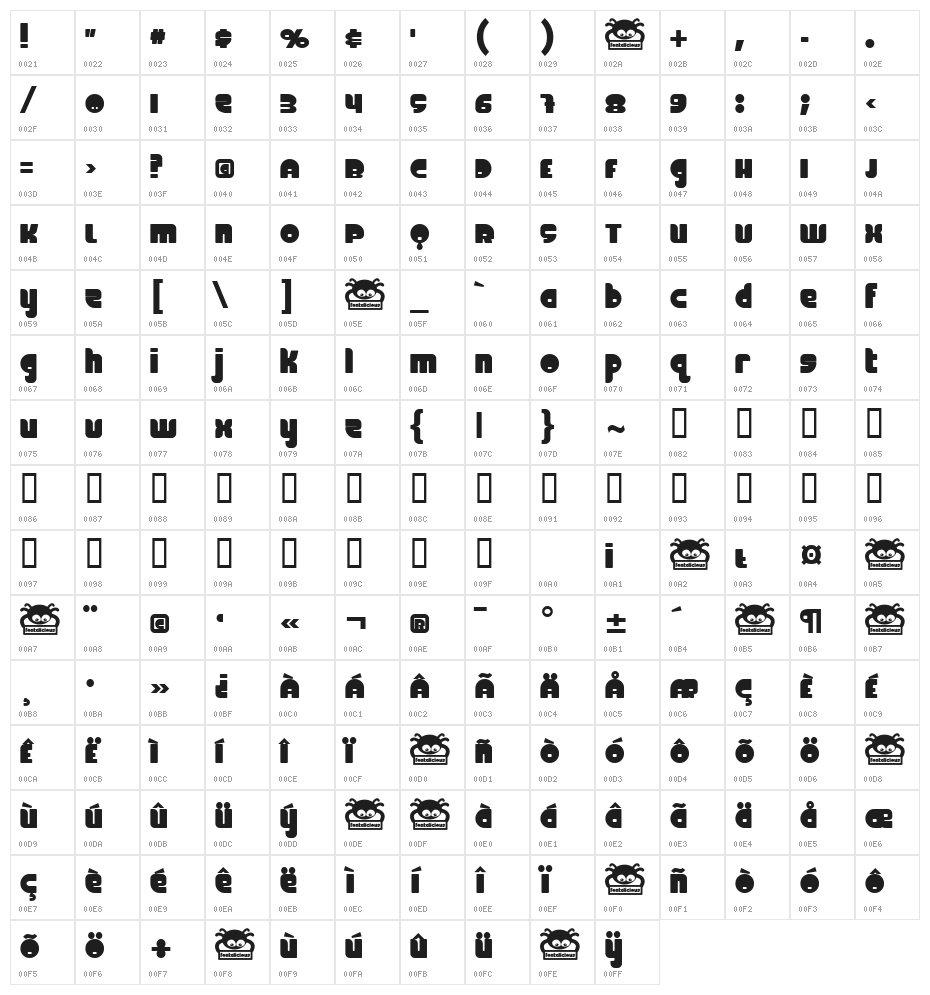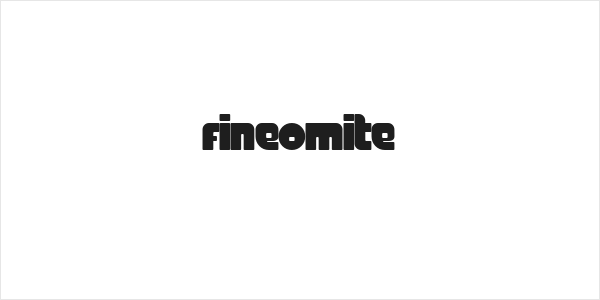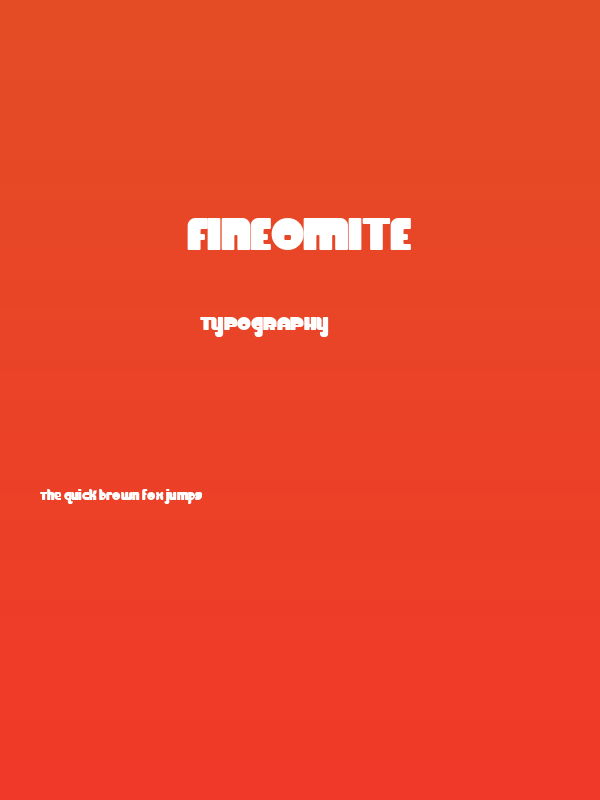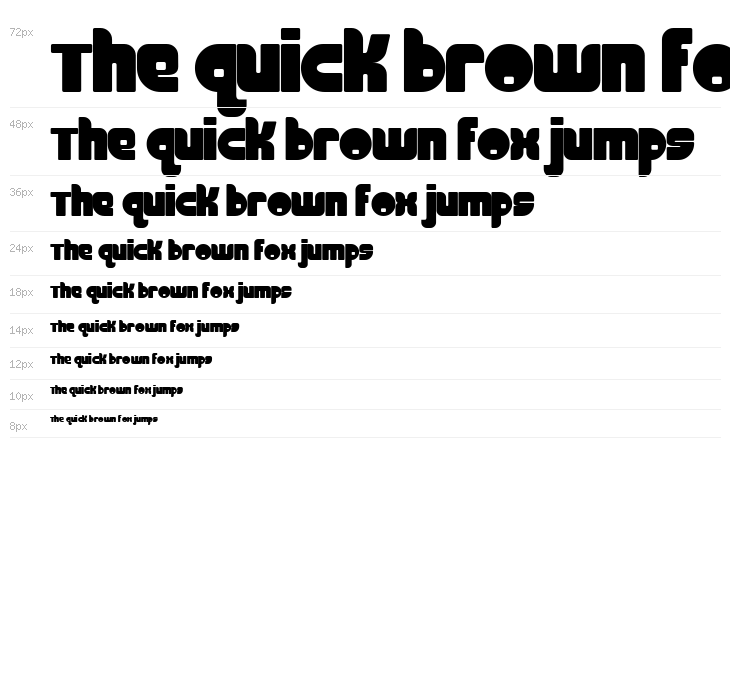
FineOMite Font
FineOMite Description
This font features a bold and playful design with a distinctly rounded and blocky appearance. The characters are uniformly thick, giving it a strong presence and making it highly legible even at smaller sizes. The rounded edges and consistent stroke width contribute to a friendly and approachable aesthetic. The font includes both uppercase and lowercase letters, numerals, and a variety of special characters, all maintaining the same bold style. Its unique design elements make it stand out, perfect for projects that require a touch of whimsy and boldness.
| Overall Style | Playful, Modern |
| Proposed Projects | Ideal for children's books, playful branding, posters, and creative digital content. |